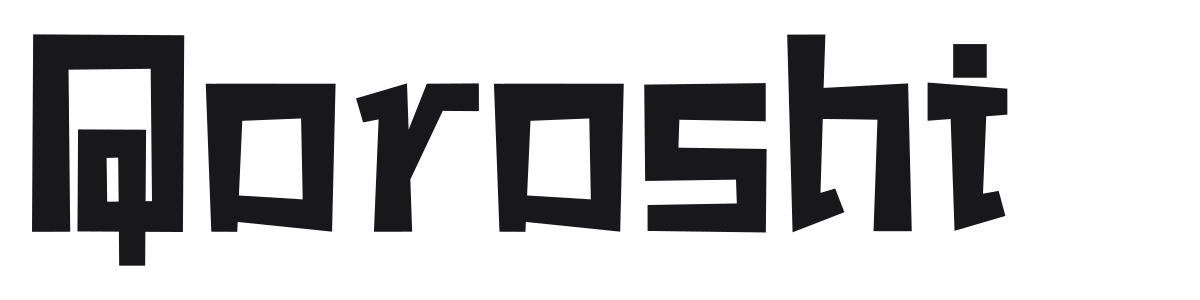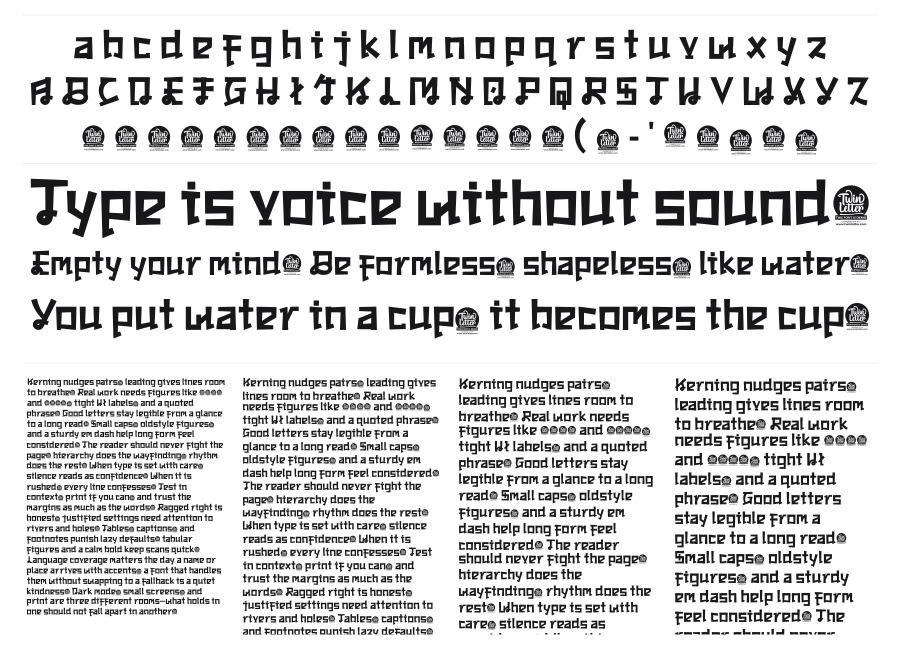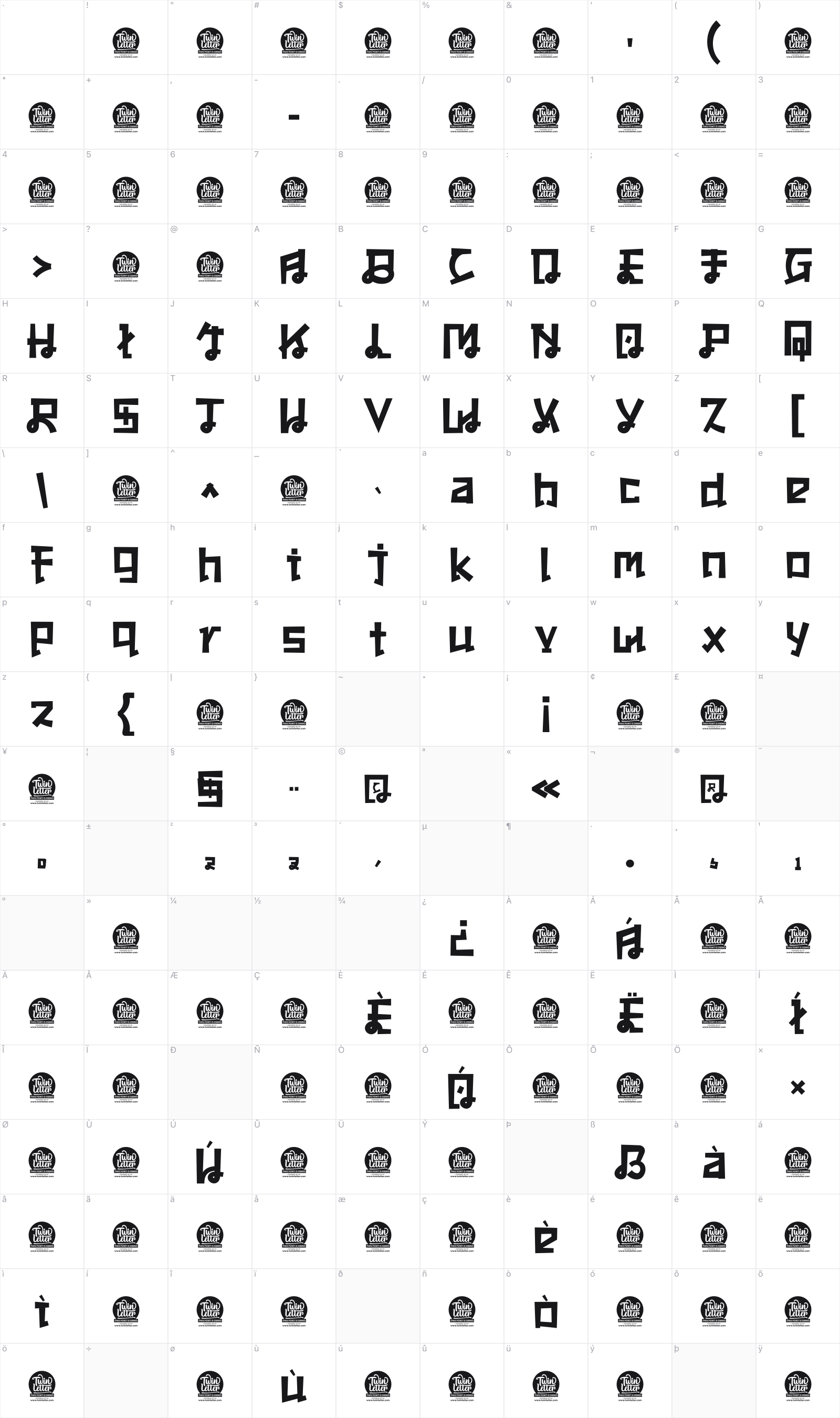
Qoroshi
Qoroshi is a heavy display font with rough, hand-cut stroke endings that feel carved from wood or stone. The irregular terminals and angular joints give it a raw, underground energy that reads instantly at large sizes. It suits poster headlines, album artwork, and brand identities where conventional polish would undercut the message.